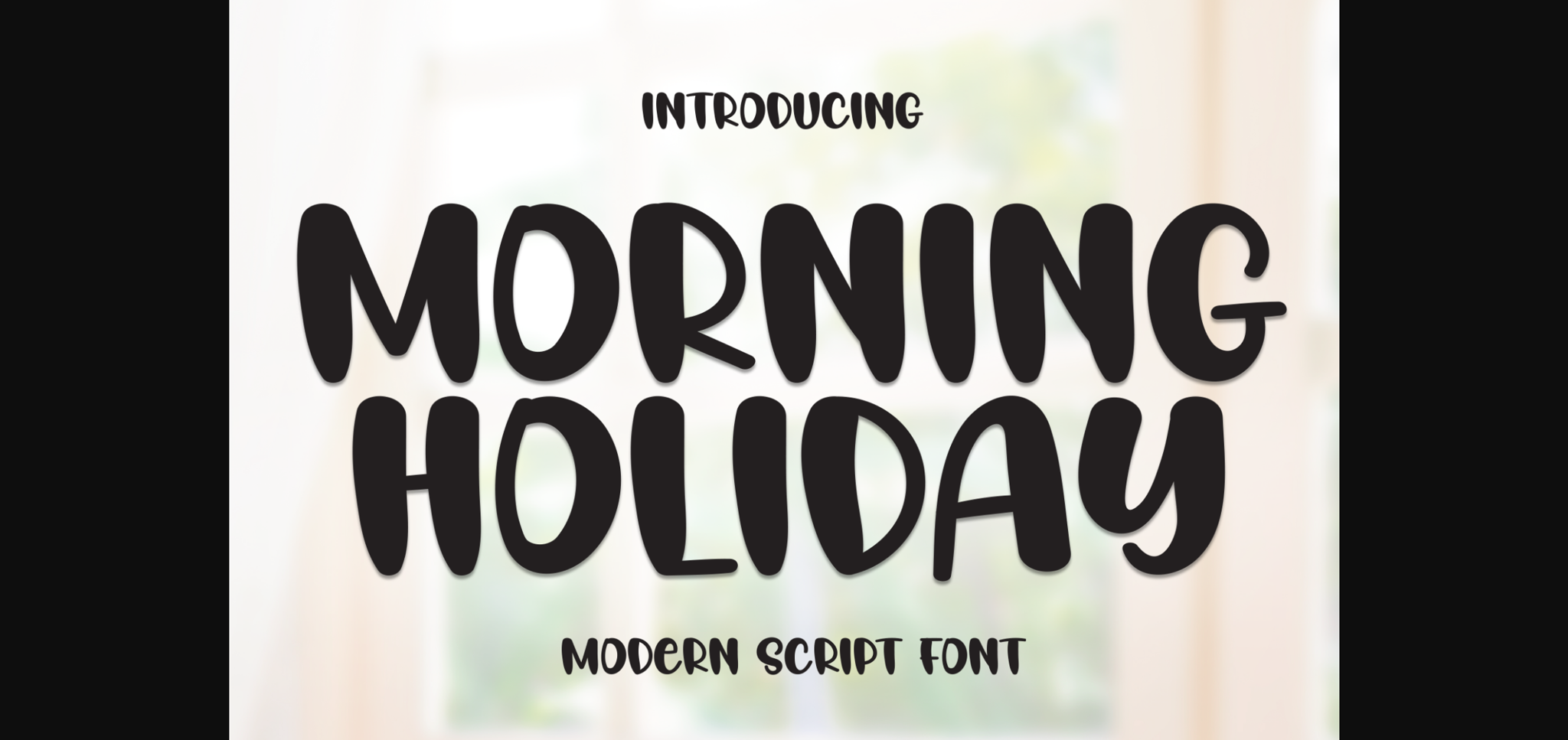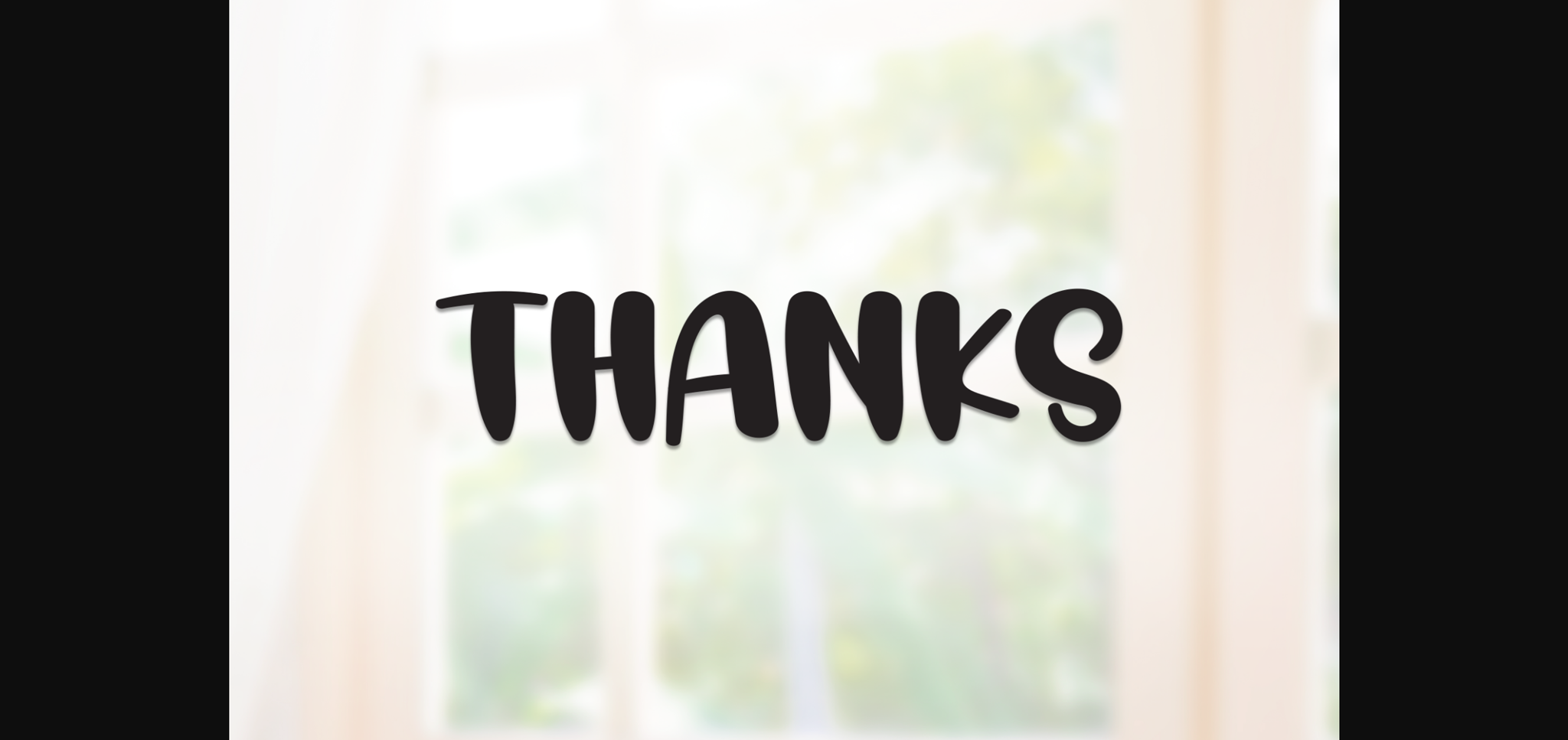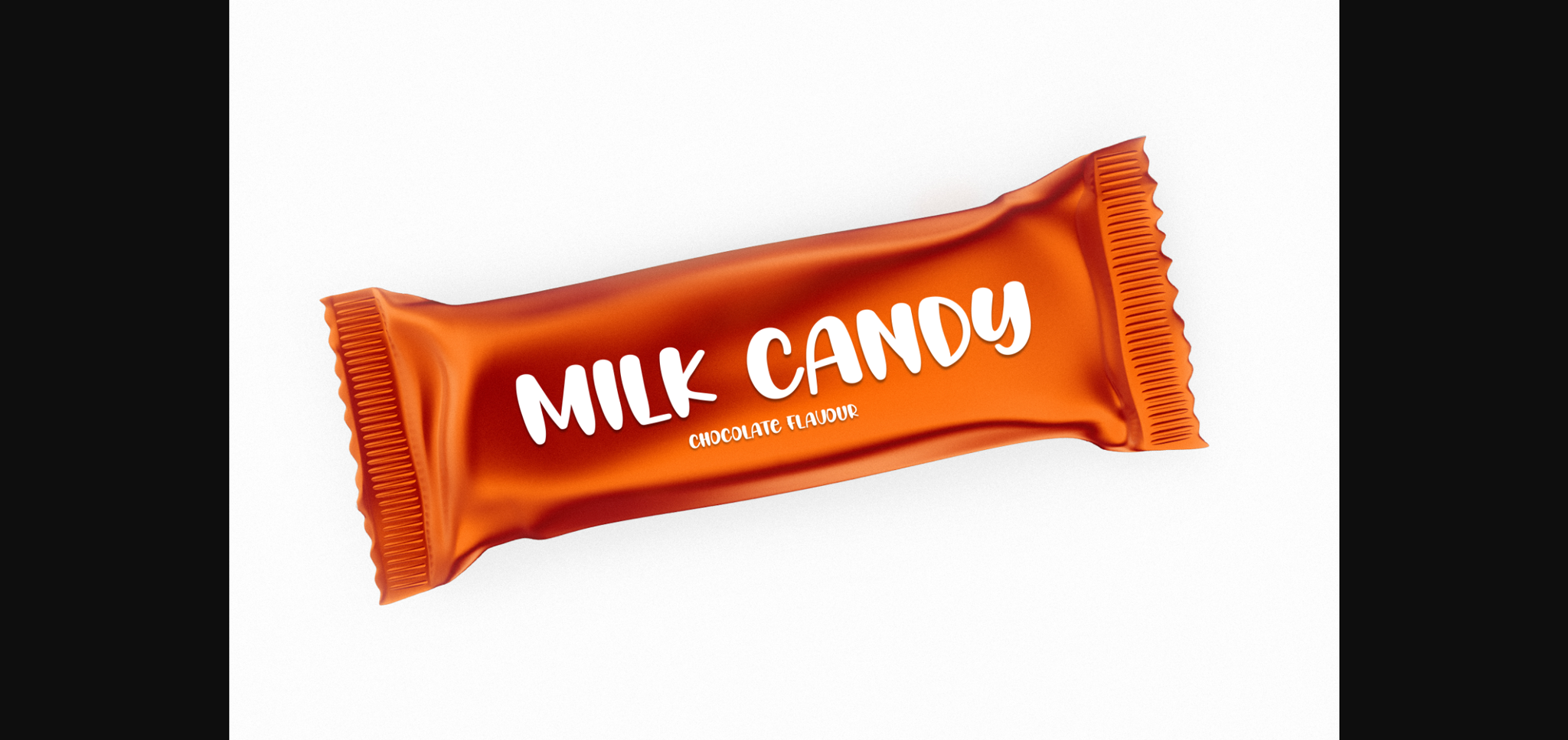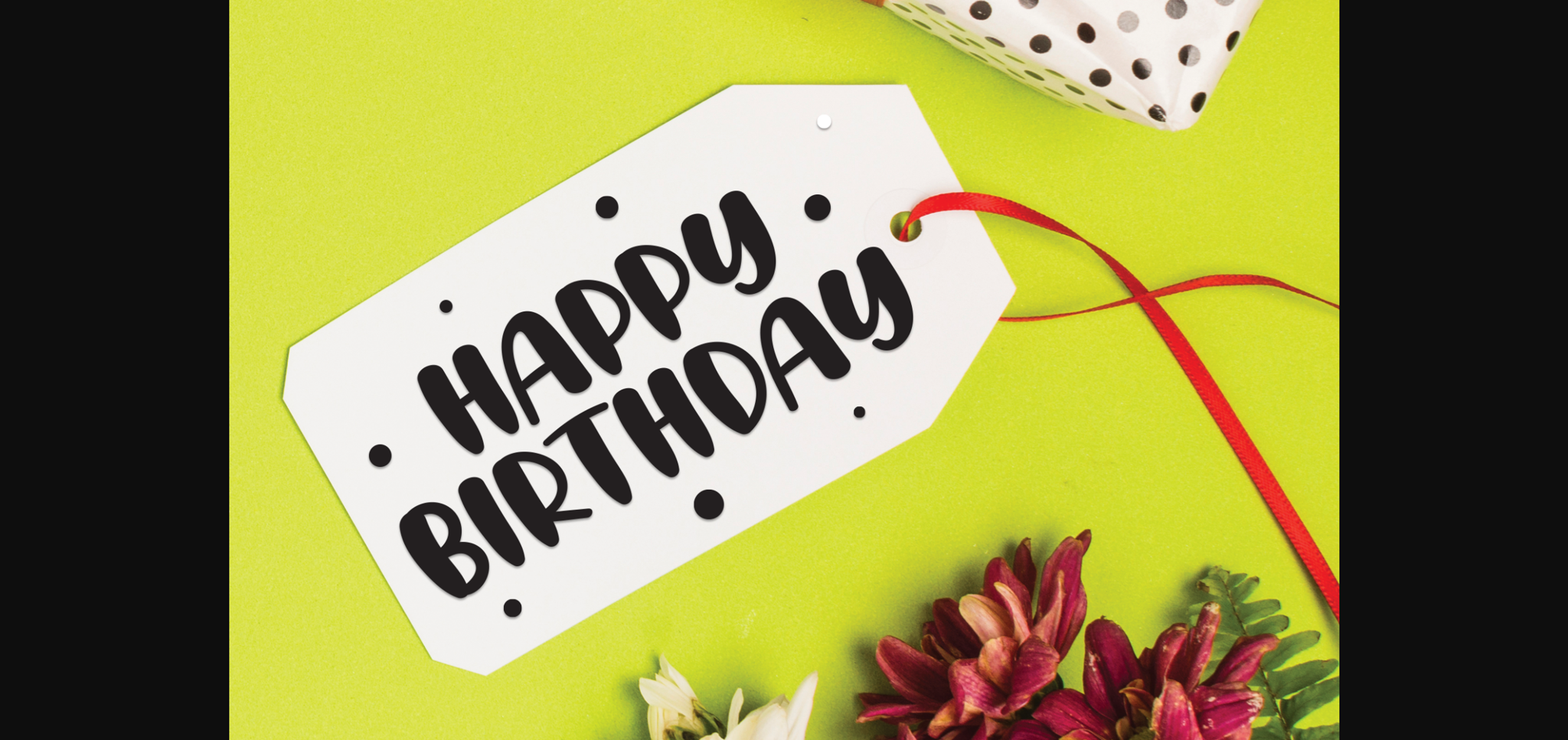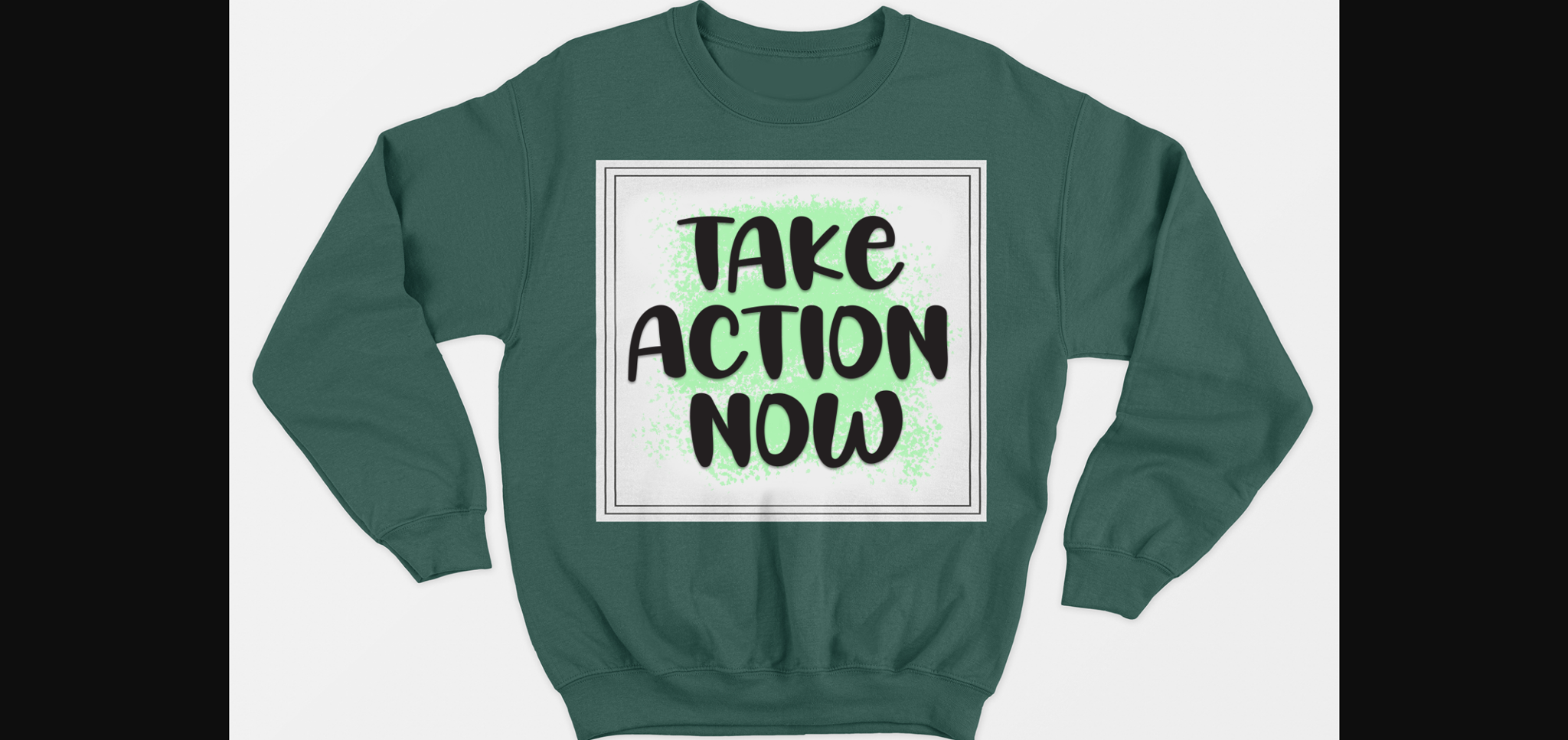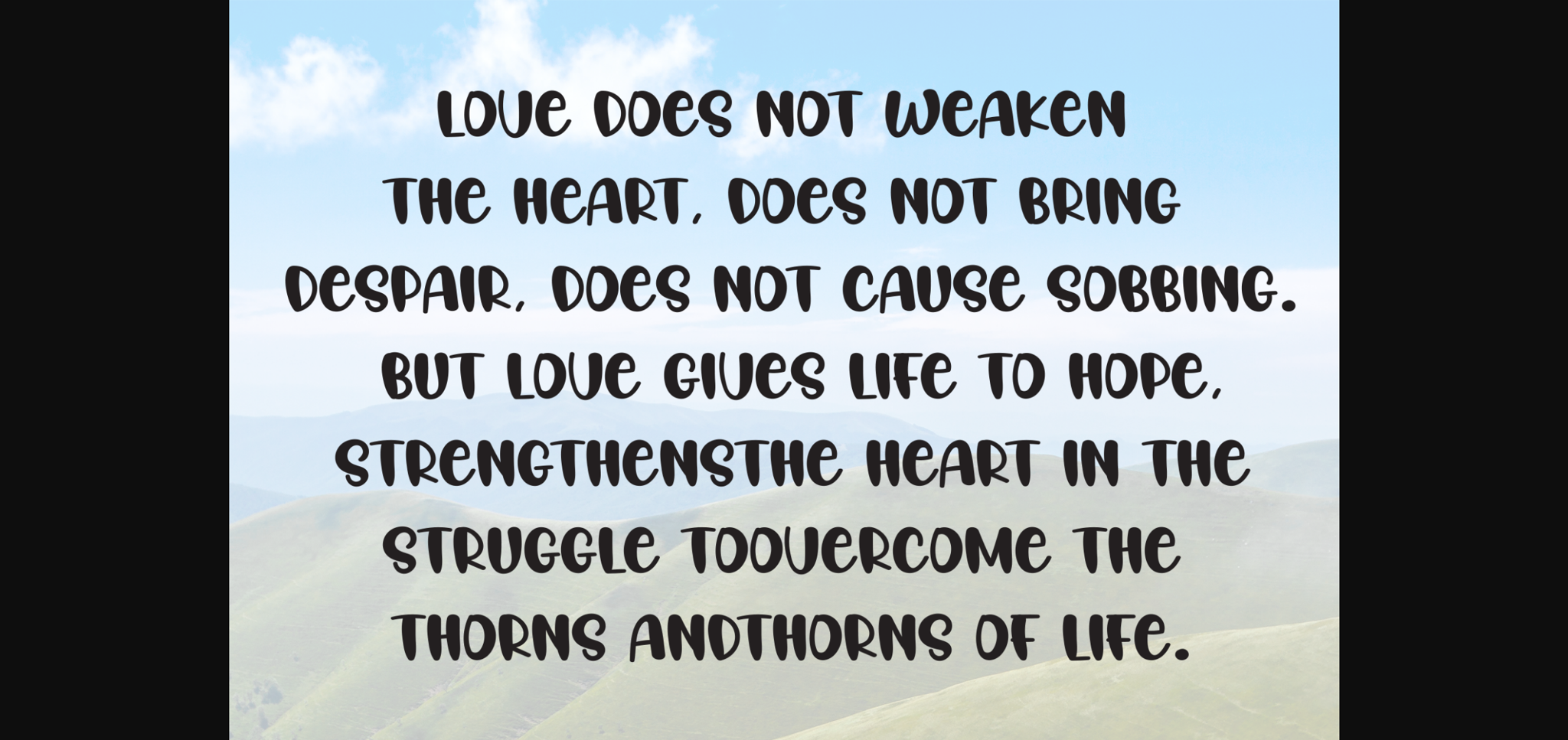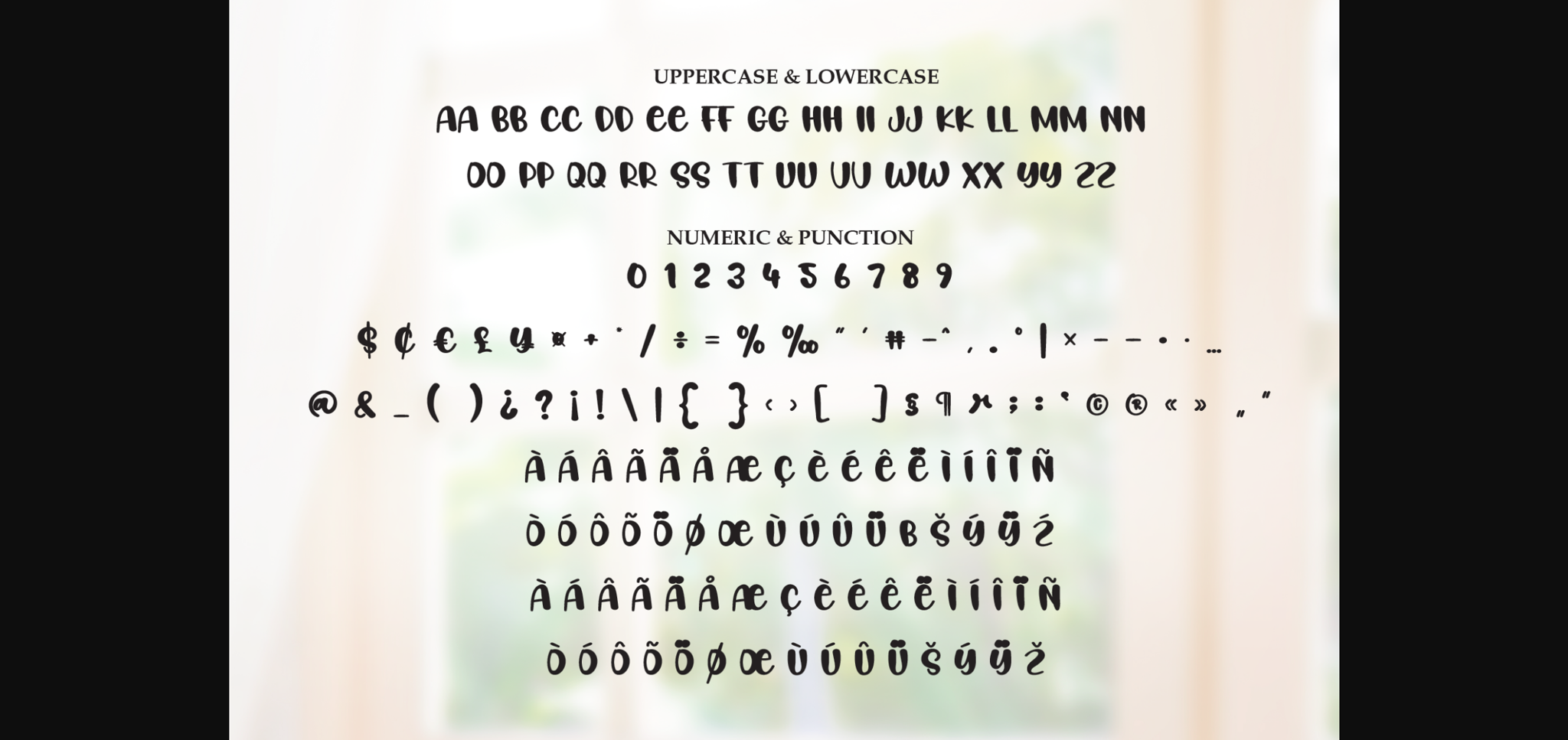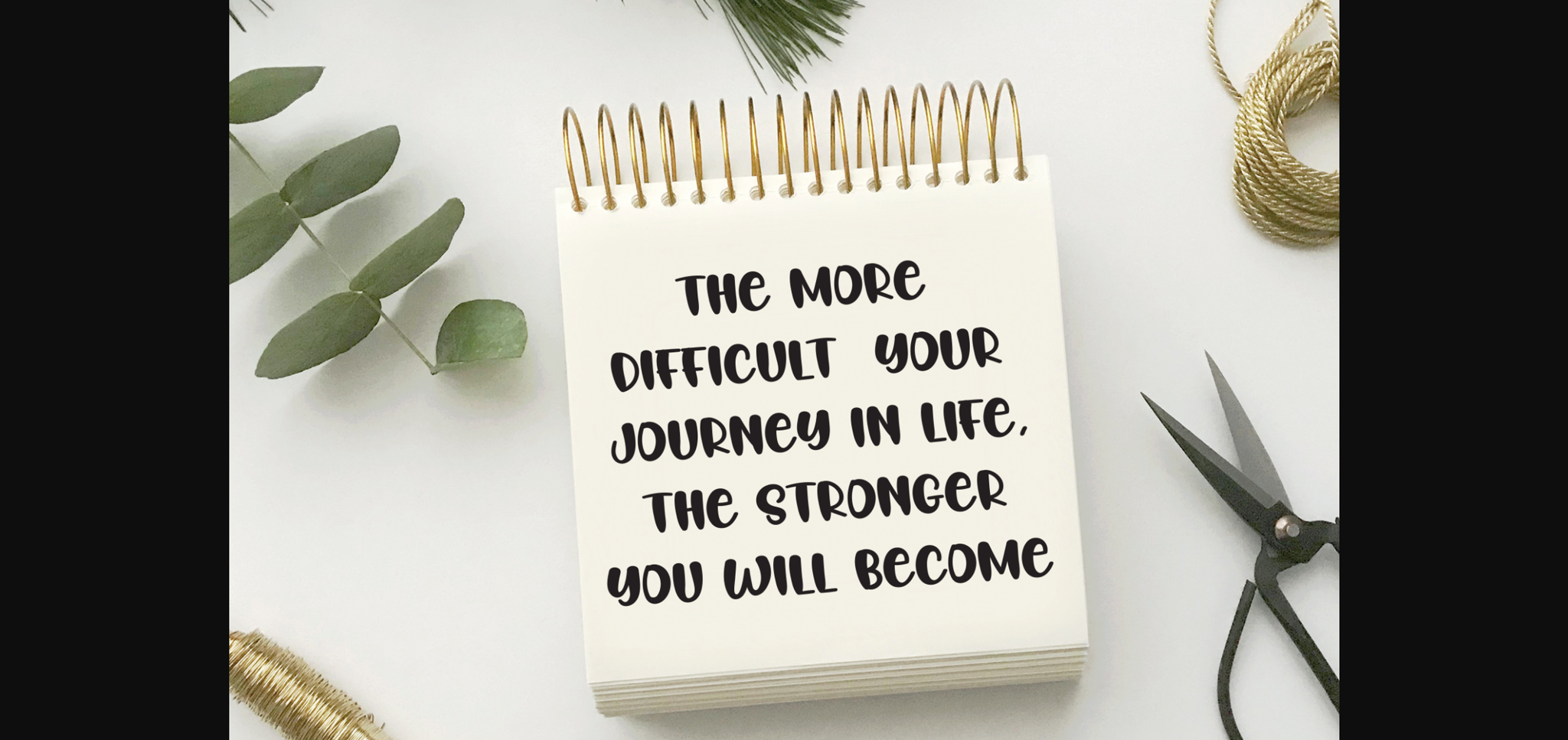
Morning Holiday Font
About Morning Holiday Font
Morning Holiday is a sweet and friendly sans-serif font that wraps your designs in a warm embrace of adorability. With charming letterforms and an innocent vibe, it infuses a delightful playfulness into your creative projects. Ideal for conveying a lighthearted and endearing aesthetic, Morning Holiday adds a sweet and whimsical flair to your expressions.